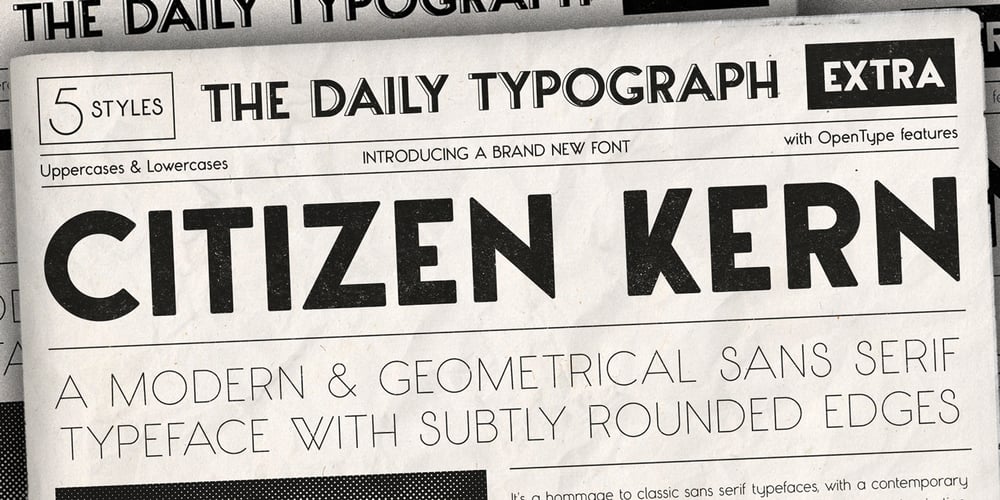
Citizen Kern
Citizen Kern font
Citizen Kern Font Family was designed by Pierre Tur and published by Pierre Tur. Citizen Kern contains 5 styles and family package options. Citizen Kern is a modern, geometrical grotesk typeface. It comes in 5 different styles and opentype features for a better use of typography: it’s good for both headlines and body copy. It was made from the simplest geometrical shapes for a universal appearance, with enhanced overlaps to ensure an offbeat look. Citizen Kern is meant to work for any graphic project. You can use it for branding, editorial design, signage or even motion design : its simple shapes make it super easy to animate.Do you love the classic sans serif fonts? We all do. But what if you could add some singularity to your projects? Then Citizen Kern is the ideal pick for you. It will never be as perfect as the classics but will definitely offer an alternative, and freshness to your work.